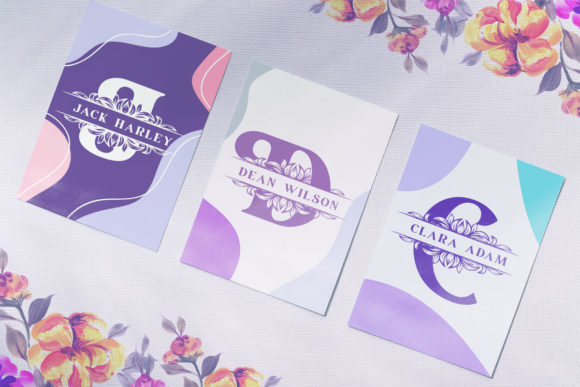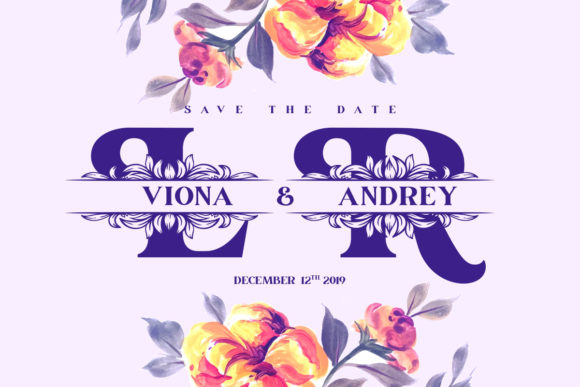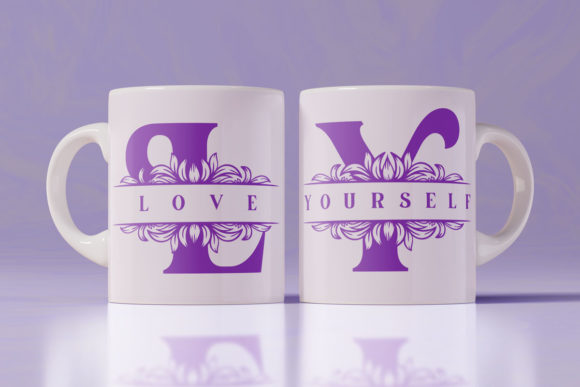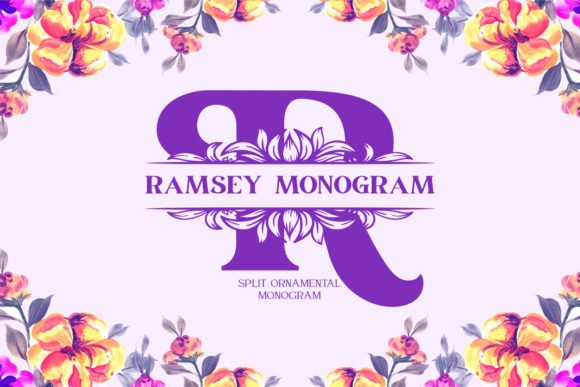
Introduction to Ramsey Monogram Font
Ramsey is an amazing monogram display font.
Masterfully designed to become a true favorite, this font has the potential to bring each of your creative ideas to the highest level .
Key Features of Ramsey Monogram Font
Why Choose Ramsey Monogram Font?
Ramsey Monogram Font offers exceptional quality and versatility, making it a valuable addition to your design toolkit. Whether you’re creating for personal projects or commercial use, Ramsey Monogram Font delivers professional results.